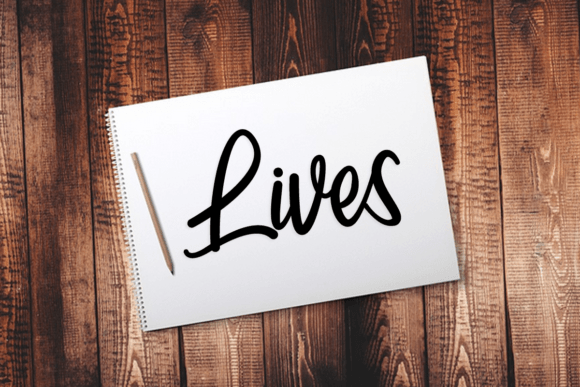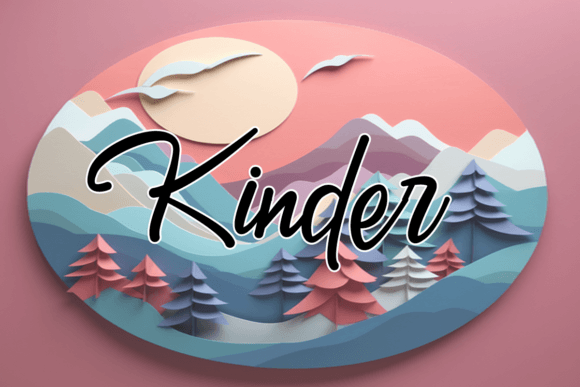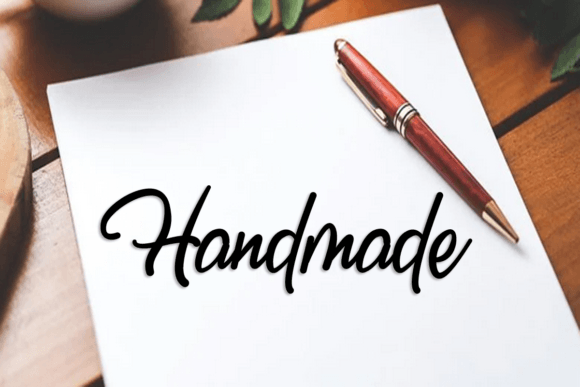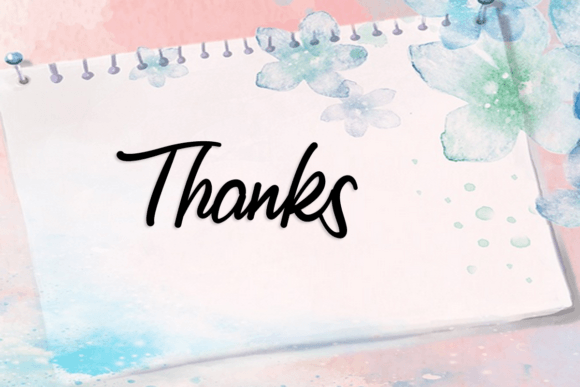
Introducing Grandma Font: The Sweet and Friendly Handwritten Font for Your Design Needs
Are you a designer or crafter looking for a font that can add a touch of warmth and personality to your designs? Look no further than Grandma Font! This beautiful handwritten font is perfect for creating wedding invitations, greeting cards, and other designs that require a lovely and friendly touch.
What Makes Grandma Font So Special?
Grandma Font is a unique and charming handwritten font that is sure to capture the hearts of your audience. Its sweet and friendly appearance makes it ideal for a wide range of design projects, from formal wedding invitations to playful birthday cards. The font’s cute and fun design ensures that your designs will stand out from the crowd and leave a lasting impression.
Characteristics of Grandma Font
So, what makes Grandma Font so special? Here are some of its key characteristics:
- Handwritten appearance: Grandma Font has a beautiful, handwritten appearance that gives it a personal and friendly touch.
- Cute and fun design: The font’s design is playful and fun, making it perfect for designs that require a lighthearted and cheerful touch.
- Sweet and elegant: Despite its playful nature, Grandma Font is also sweet and elegant, making it suitable for more formal designs, such as wedding invitations.
- Easy to read: The font is clear and easy to read, ensuring that your message will be understood by your audience.
Uses for Grandma Font
Grandma Font is a versatile font that can be used for a wide range of design projects. Here are some ideas to get you started:
- Wedding invitations: The font’s elegant and sophisticated design makes it perfect for wedding invitations, save-the-date cards, and other wedding-related designs.
- Greeting cards: Grandma Font is ideal for creating greeting cards for special occasions, such as birthdays, anniversaries, and holidays.
- Party invitations: The font’s playful and fun design makes it perfect for party invitations, such as baby showers, bridal showers, and birthday parties.
- Social media graphics: Grandma Font can also be used to create social media graphics, such as quotes, posters, and flyers.
Tips for Using Grandma Font
Here are some tips for using Grandma Font in your designs:
- Pair it with other fonts: Grandma Font can be paired with other fonts to create a unique and interesting design. Try pairing it with a bold font for a striking contrast.
- Use it in combination with images: The font looks great when used in combination with images, such as photographs or illustrations.
- Experiment with colors: Grandma Font looks great in a variety of colors, so don’t be afraid to experiment and find the perfect color scheme for your design.
In conclusion, Grandma Font is a beautiful and versatile handwritten font that is perfect for designers and crafters looking to add a touch of warmth and personality to their designs. Its sweet and friendly appearance makes it ideal for a wide range of design projects, from formal wedding invitations to playful birthday cards. With its cute and fun design, Grandma Font is sure to capture the hearts of your audience and leave a lasting impression.